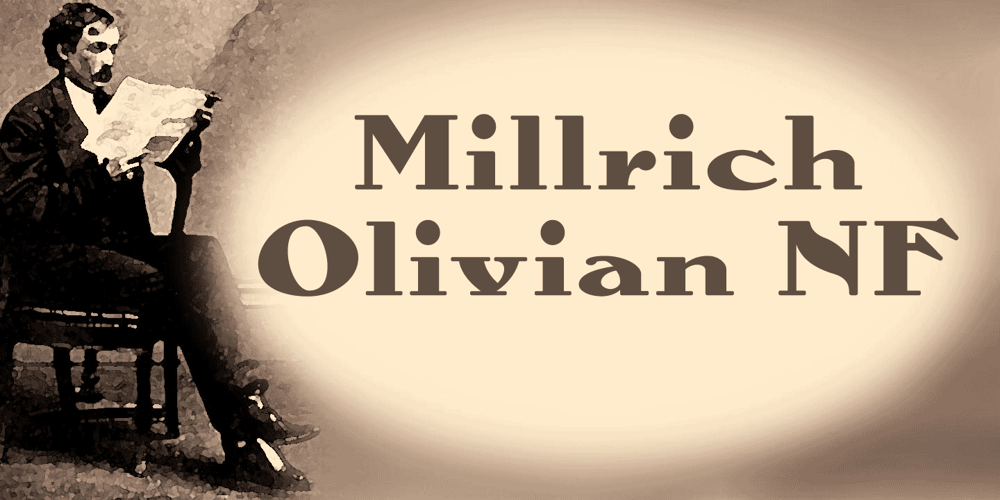
Millrich Olivian NF
Millrich Olivian NF font
Millrich Olivian NF Font Family was designed by Nick Curtis and published by Nick’s Fonts. Millrich Olivian NF contains 1 styles and family package options. Fat, wide and friendly—that describes this offering from the Miller and Richards foundy of Glasgow to a tee. Use it in good health. Both versions support the Latin 1252, Central European 1250, Turkish 1254 and Baltic 1257 codepages.